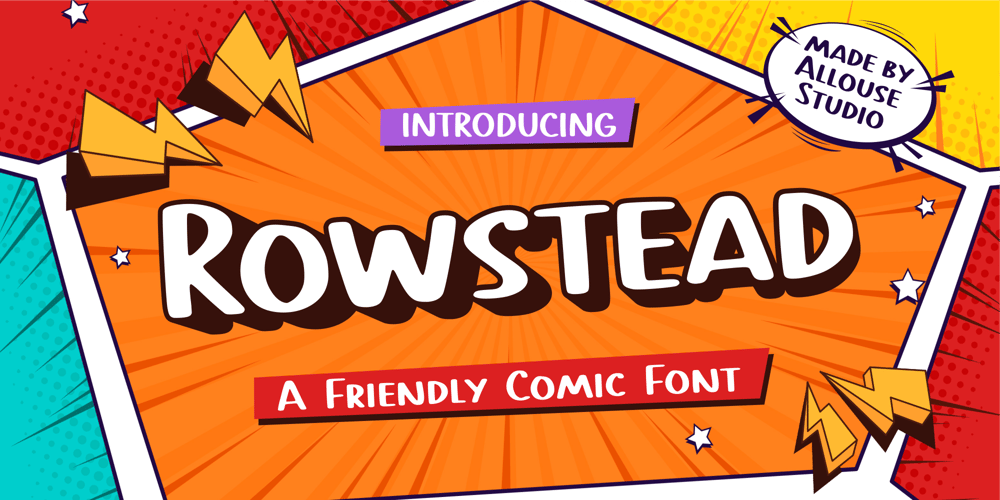
Rowstead Font Family was designed by Fachrizal Yusuf and published by Allouse Studio. Rowstead contains 1 styles and family package options. Proudly Presenting, Rowstead A Friendly Comic Font.Rowstead is perfect for any titles, logo, product packaging, branding project, megazine, social media, wedding, or just used to express words above the background.Rowstead also come with Multi-Lingual Support.Enjoy the font, feel free to comment or feedback, send me PM or email. Thank You!